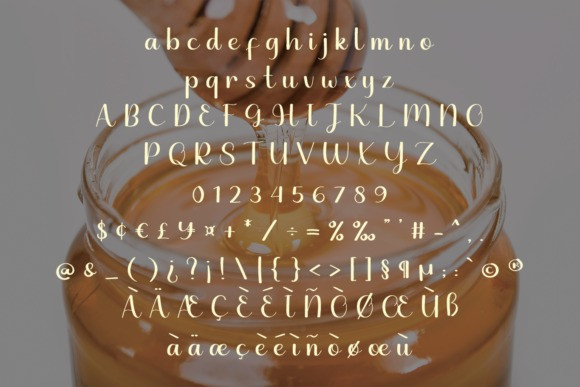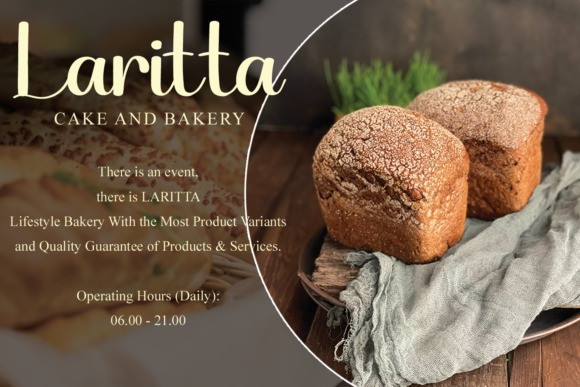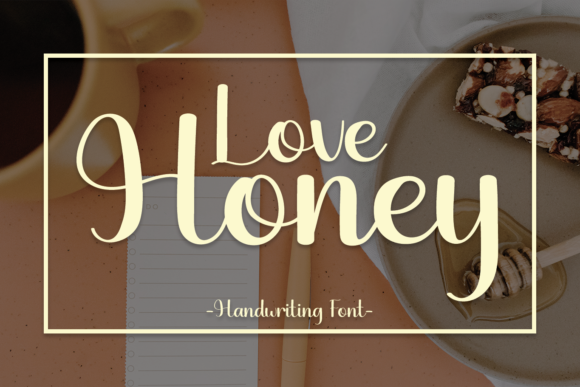
Love Honey Font
Love Honey Font is a lovely and delicate script font that exudes elegance and class. This font was particularly crafted for those who need a beautiful and refreshing look to their designs.